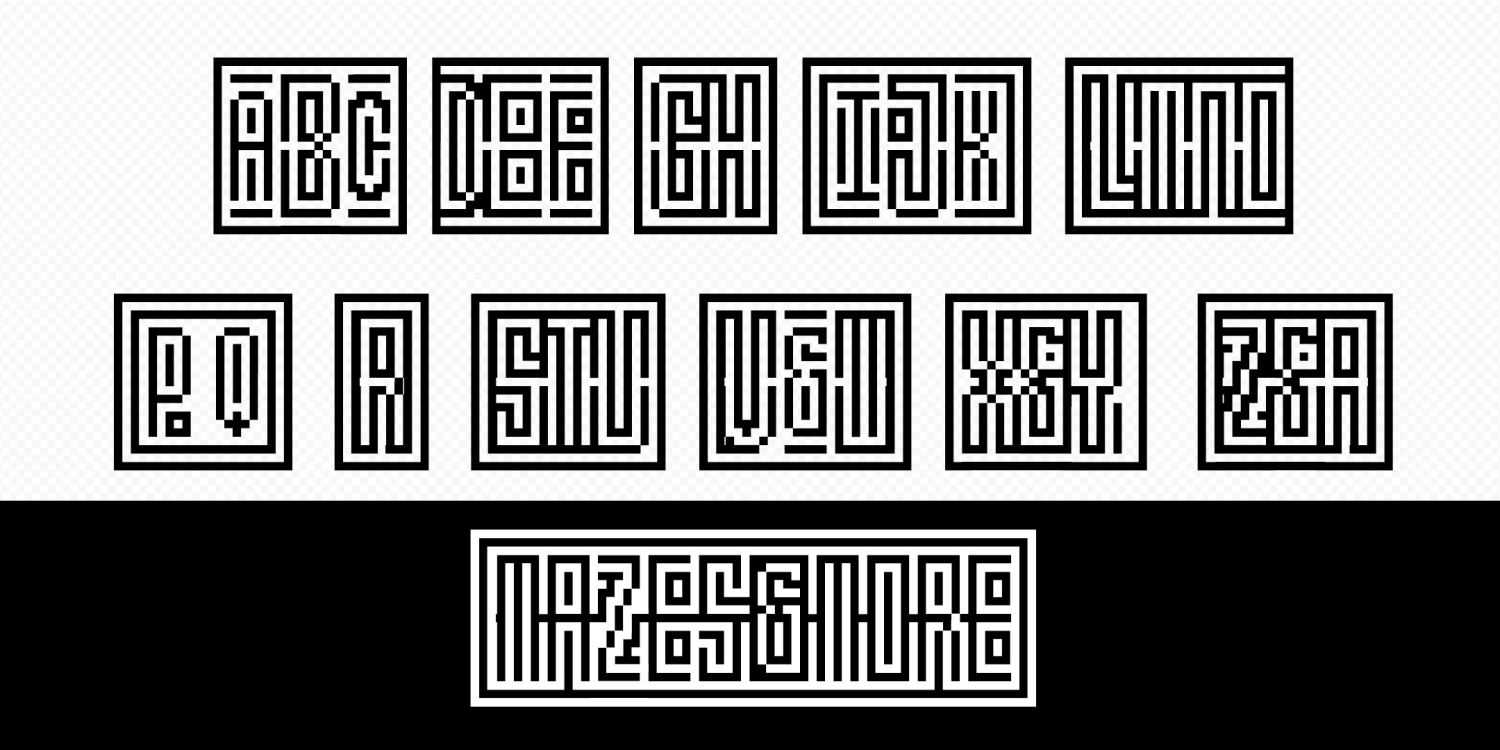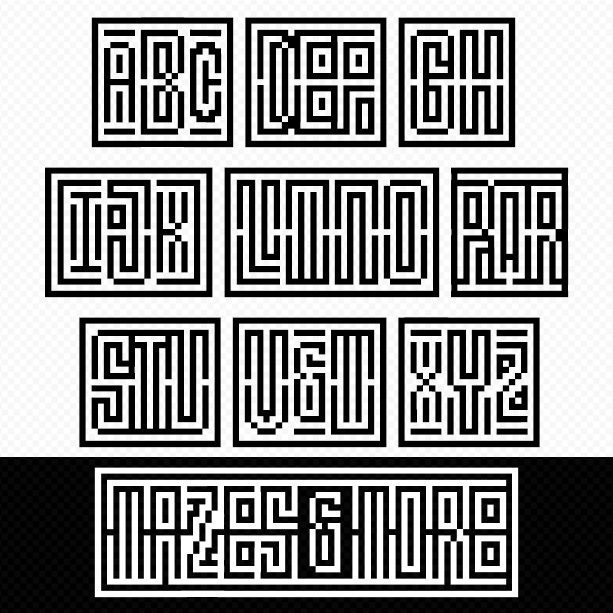
Maze Monogram
Maze Monograms lets you produce your custom monograms (or short bits of text) in a distinctive maze style. With influences like QR codes, crossword puzzles, and Kufic calligraphy, Maze Monograms make a bold graphic statement first, then become more legible as you look. Your custom Maze Monogram will be a unique design and a message. Get into it!